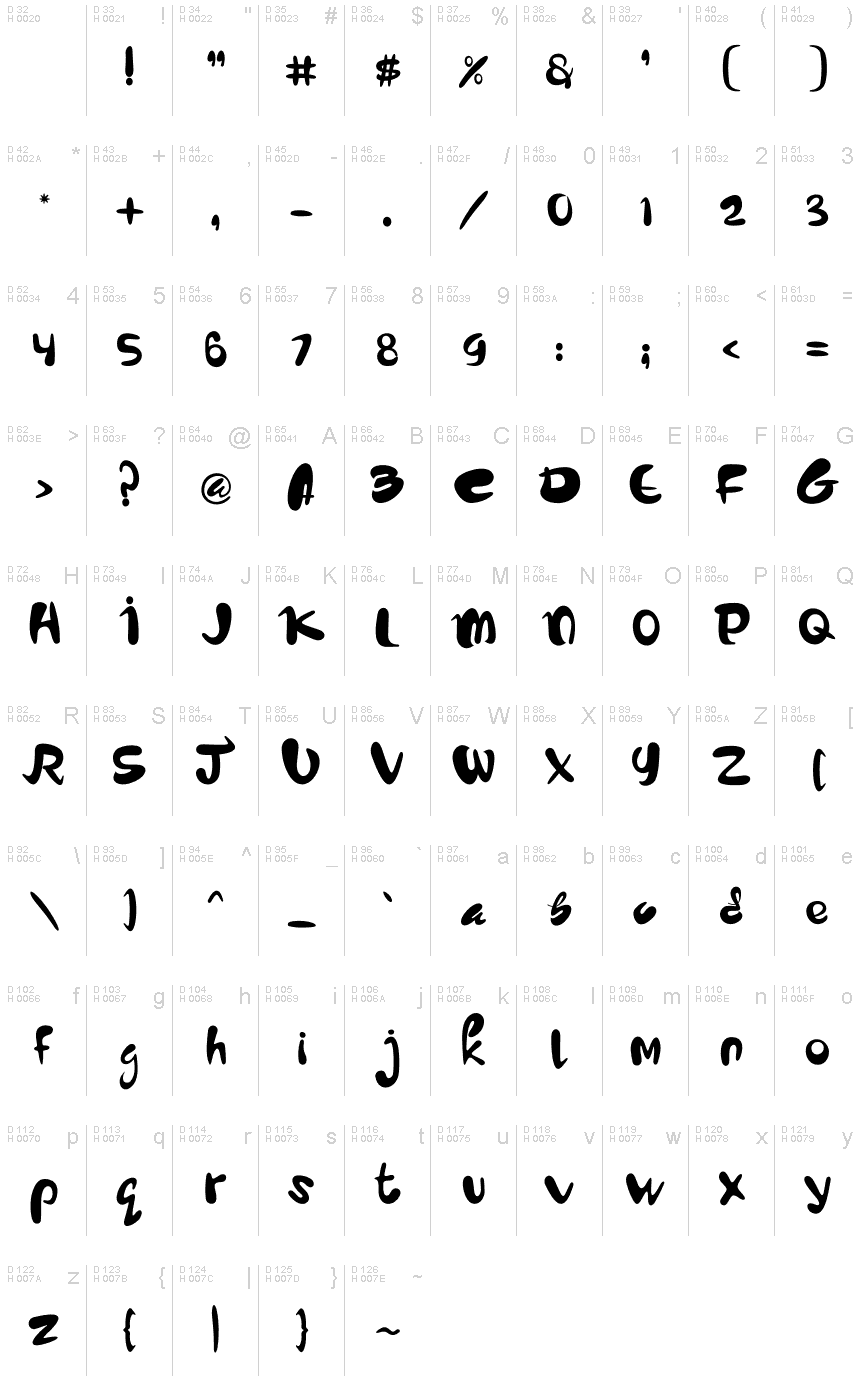
cute peppy
Cute Peppy, designed by ISNAYONO, is a playful cartoon display font with a bold weight. Perfect for creating fun and exciting projects such as logos, children's book covers, and social media posts.